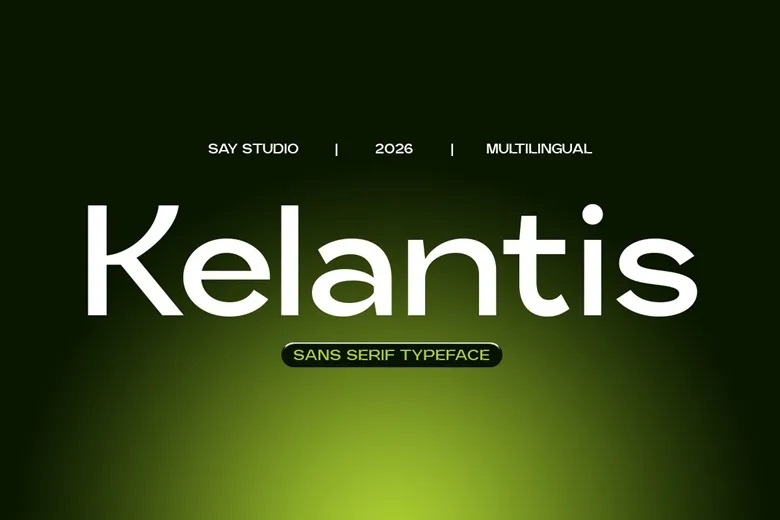
Kelantis Font
Kelantis is a modern sans-serif typeface made for clarity and simplicity. With its clean lines and balanced proportions, it offers a sleek, professional look that works well in today’s digital and branding world. Its simple design makes it easy to read, whether you use it for big headlines or smaller text.
Kelantis is a versatile typeface that works well for branding, UI/UX design, tech startups, websites, logos, and corporate identity. It easily adapts to a wide range of design needs.
If you are building a digital product, designing a modern brand, or working on clean editorial layouts, Kelantis gives you the flexibility and style to make your work stand out.